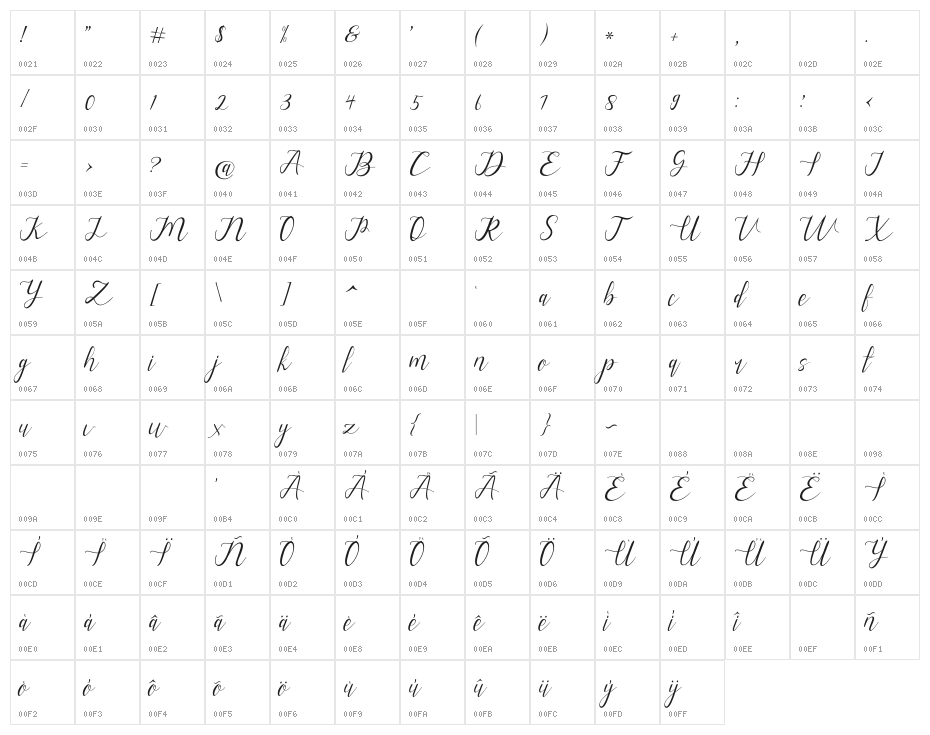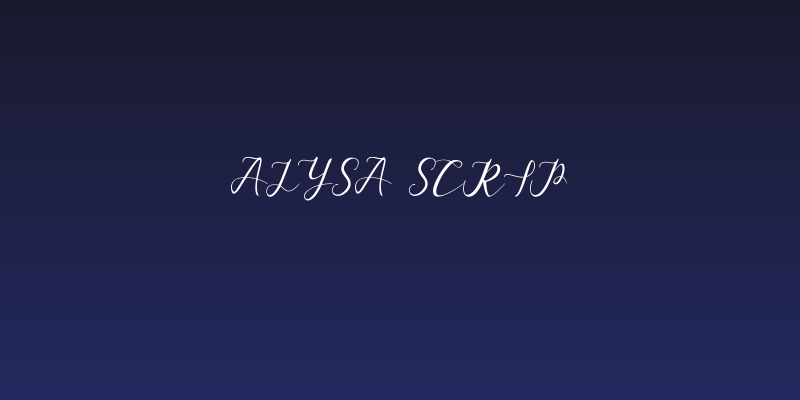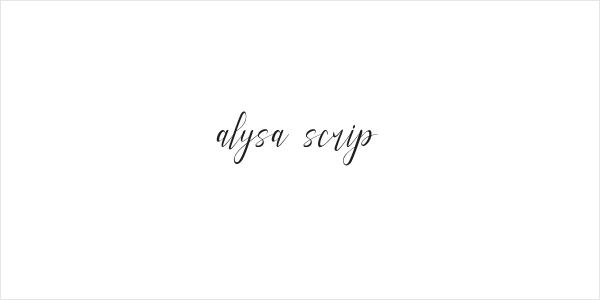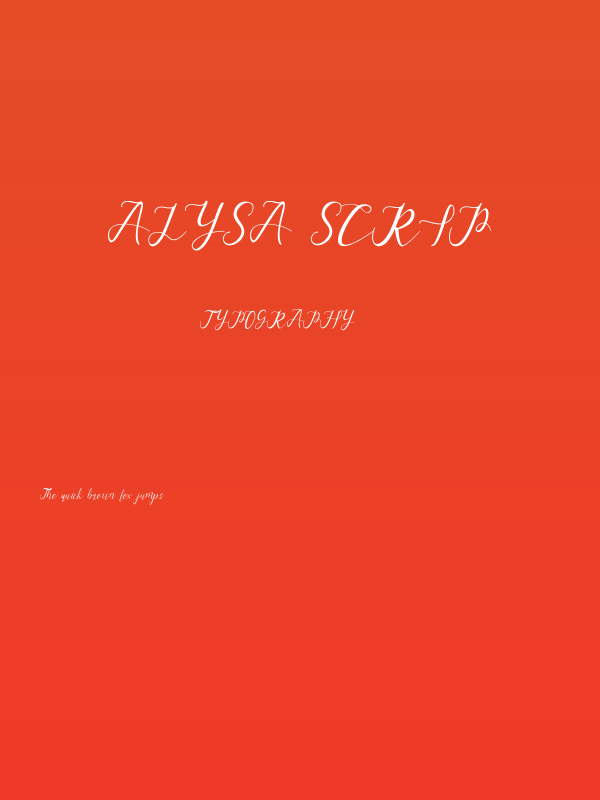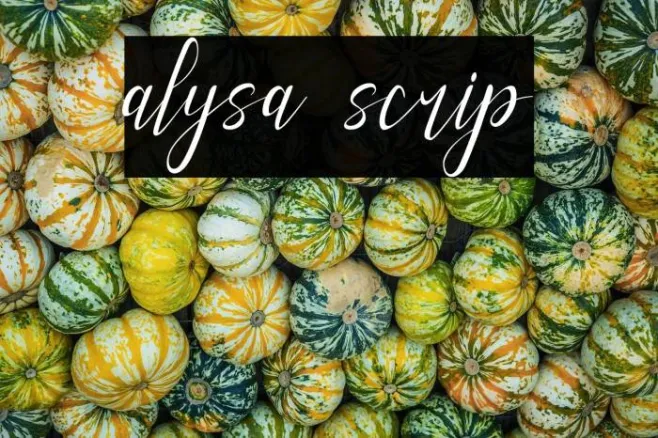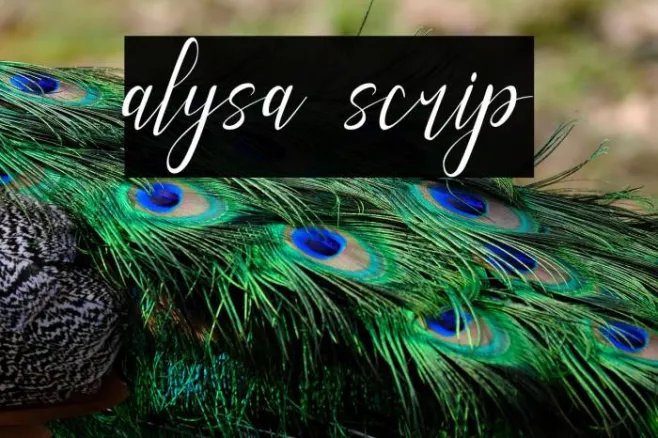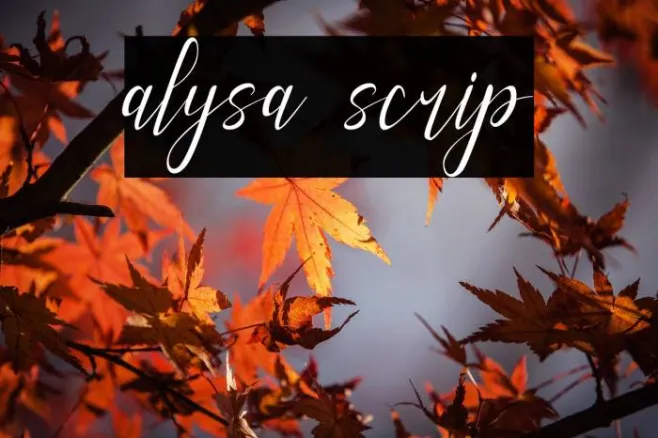
alysa scrip Font
alysa scrip Description
This elegant script font features a flowing, cursive style with smooth, connected strokes that mimic the fluidity of handwriting. The uppercase letters are gracefully elongated, with subtle flourishes that add a touch of sophistication. The lowercase letters maintain a consistent rhythm, enhancing readability while preserving the font's decorative appeal. Numbers and special characters are designed with the same attention to detail, ensuring a cohesive look across all text elements. This font's delicate curves and stylish appearance make it ideal for projects that require a personal, artistic touch.